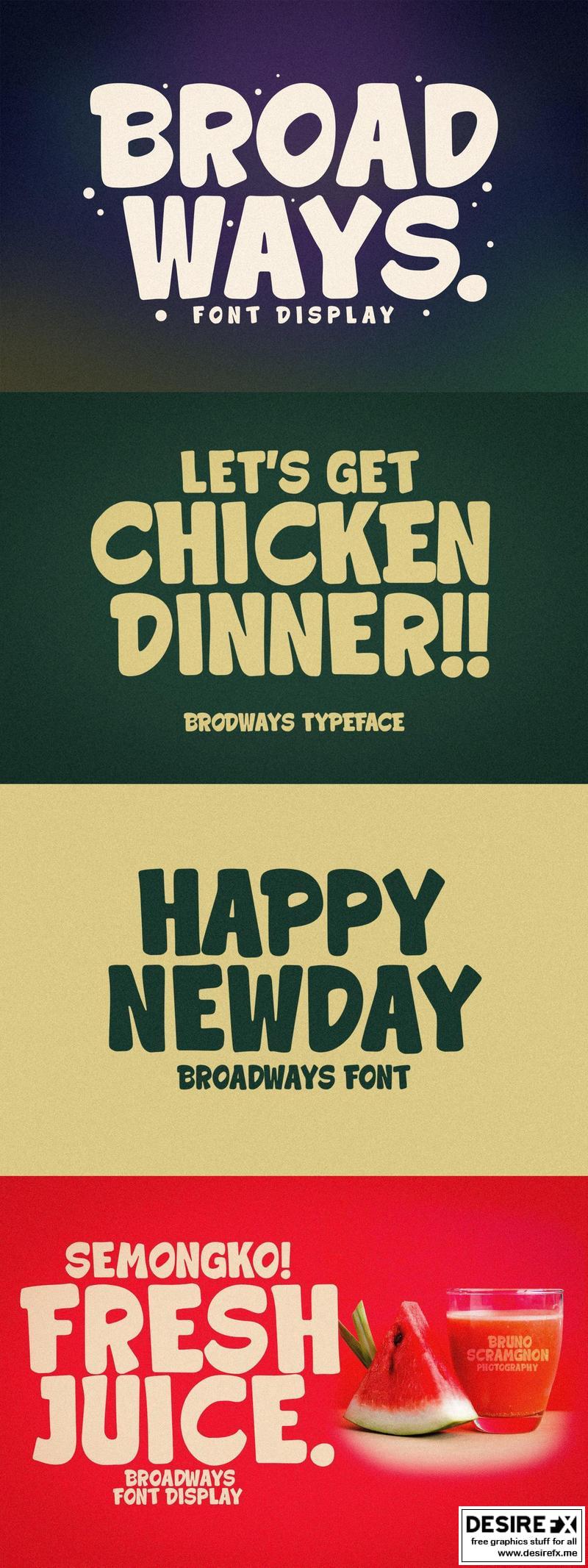
Broadways 8YZA9M4
Hello everyone, on this occasion we would like to introduce our newest product, which we named “Broadways“.Use it for branding, procreate, crafts for decor, invitations, and more! This font includes all caps glyphs, numbers, basic punctuation and multilingual.